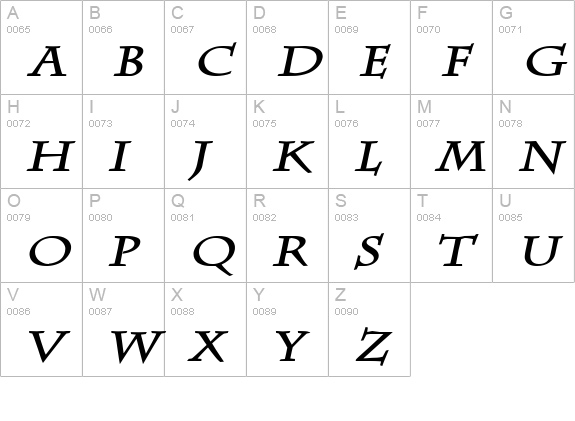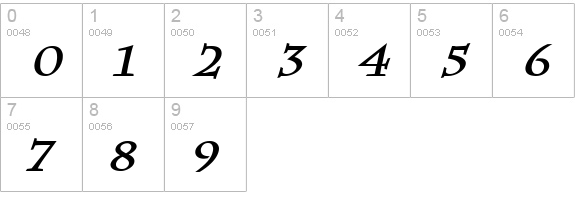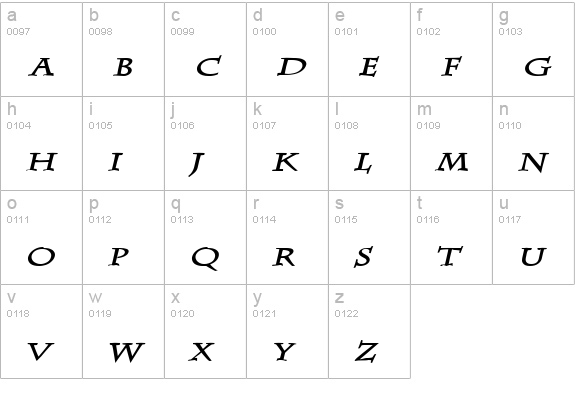
Chaz Wide BoldItalic Font Details
Chaz Wide BoldItalic is a distinctive, extended-width variant in the Chaz typeface family \xE2\x80\x94 well suited to design and typography projects.
Introducing Chaz Wide BoldItalic font - a striking and bold typeface designed to make a statement in any design project. Its wide and bold italic style exudes confidence and sophistication, making it perfect for headlines, titles, and branding materials that demand attention. With its sleek curves and sharp edges, Chaz Wide BoldItalic font adds a modern and dynamic touch to any design. Whether you're working on a website, poster, or logo, this versatile font will help you achieve a professional and polished look. The best part? Chaz Wide BoldItalic font is available for free download at FontsMarket.com. Simply visit the website to access this eye-catching font and elevate your designs with its unique flair. Download Chaz Wide BoldItalic today and unleash your creativity with this stunning typeface.